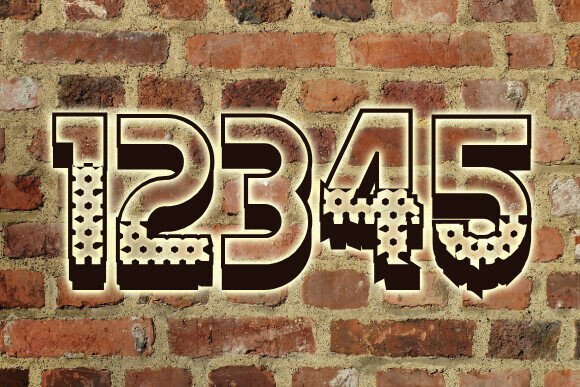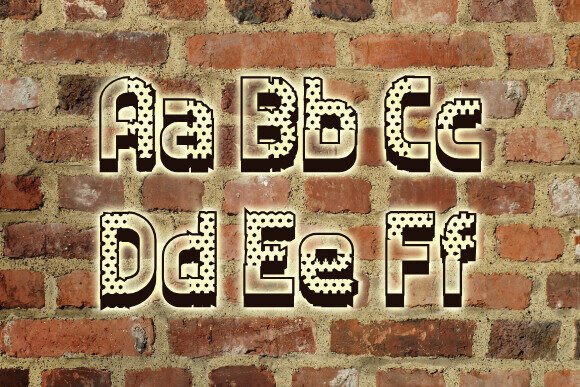
Unlock Your Design Potential with Deforme Font
Are you tired of using the same old fonts in your designs? Look no further! Deforme font is here to revolutionize the way you create. This awesome font is designed to take your designs to the next level, making it perfect for posters, flyers, t-shirts, and any other creative project you have in mind.
What is Deforme Font?
Deforme font is a unique and stylish typeface that adds a touch of edginess to any design. Its distinctive, irregular shape gives it a bold and eye-catching appearance that’s sure to grab attention. Whether you’re a professional designer or a crafty DIY enthusiast, Deforme font is the perfect choice for anyone looking to add some personality to their work.
Key Features of Deforme Font
- Unique and Stylish: Deforme font boasts a one-of-a-kind design that’s sure to make your work stand out from the crowd.
- Versatile: Use Deforme font on a variety of projects, from posters and flyers to t-shirts and more.
- Easy to Read: Despite its irregular shape, Deforme font is surprisingly easy to read, making it perfect for headlines and titles.
- Customizable: Experiment with different sizes, colors, and styles to make Deforme font your own.
Why Use Deforme Font?
So, why choose Deforme font for your next project? Here are just a few reasons:
- Adds Edge to Your Designs: Deforme font’s bold, irregular shape adds a touch of edginess to any design, making it perfect for brands and businesses looking to stand out.
- Perfect for Creative Projects: Whether you’re working on a poster, flyer, or t-shirt, Deforme font is the perfect choice for creative projects that require a unique and stylish touch.
- Great for Headlines and Titles: Deforme font’s bold and eye-catching appearance makes it perfect for headlines and titles that need to grab attention.
How to Use Deforme Font
Using Deforme font is easy! Here are a few tips to get you started:
- Pair with Other Fonts: Experiment with pairing Deforme font with other fonts to create a unique and stylish look.
- Play with Sizes and Colors: Don’t be afraid to experiment with different sizes and colors to make Deforme font your own.
- Use on a Variety of Projects: Deforme font is versatile, so don’t be afraid to use it on a variety of projects, from posters and flyers to t-shirts and more.
Deforme Font in Action
But don’t just take our word for it! Here are a few examples of Deforme font in action:
- Posters: Use Deforme font as a bold and eye-catching headline for your next poster project.
- Flyers: Add some personality to your flyers with Deforme font’s unique and stylish design.
- T-Shirts: Make your t-shirts stand out with Deforme font’s bold and edgy appearance.
In conclusion, Deforme font is an awesome font that’s sure to take your designs to the next level. With its unique and stylish design, versatility, and ease of use, Deforme font is the perfect choice for designers and crafters looking to add some personality to their work. So why wait? Download Deforme font today and start creating!